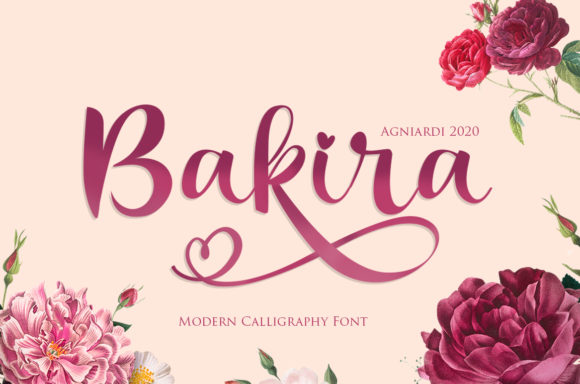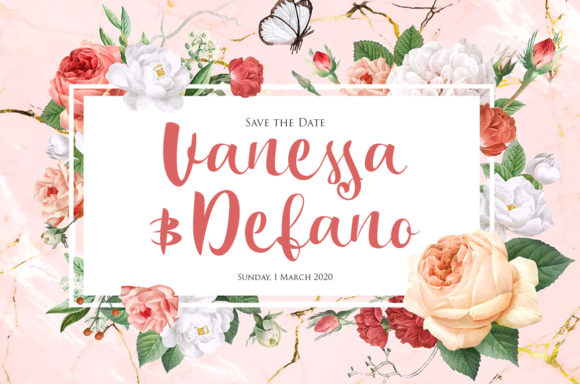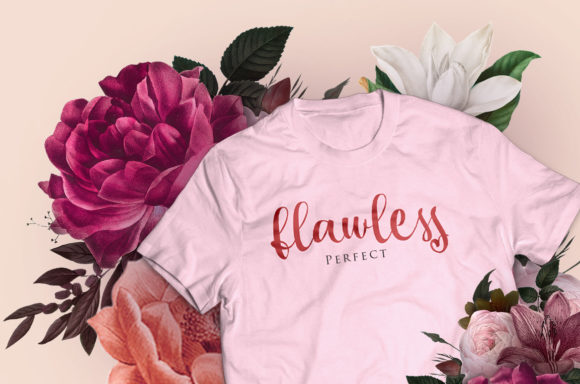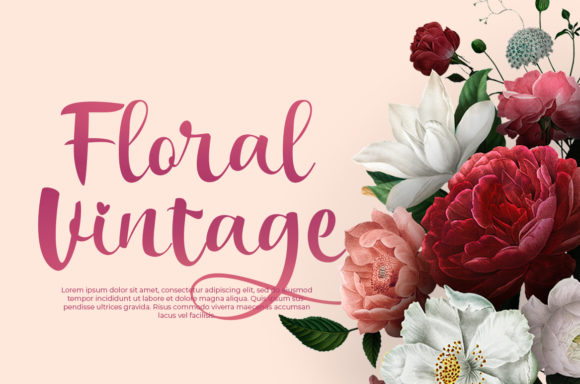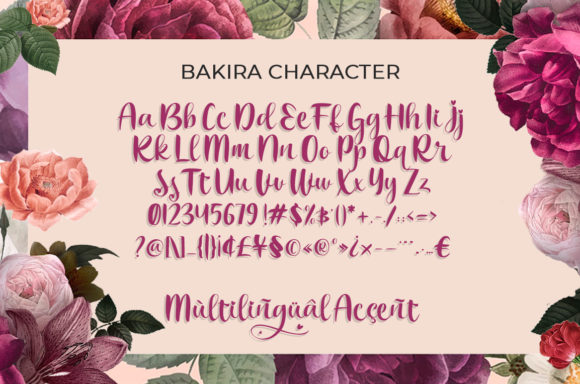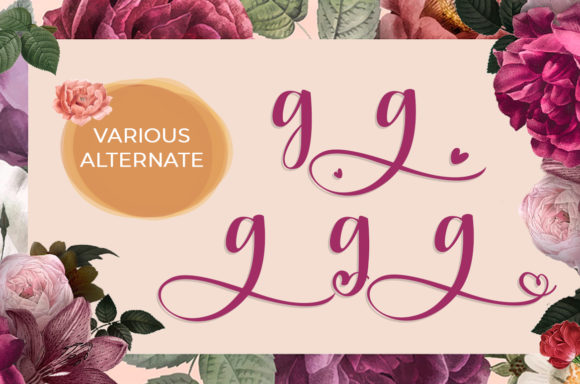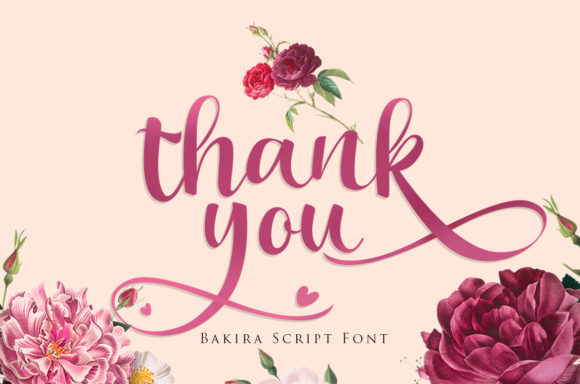
Bakira Font
About Bakira Font
Bakira is a truly gorgeous script with a playful vibe. Get inspired by its authentic charm and the stunning, PUA-encoded swashes!